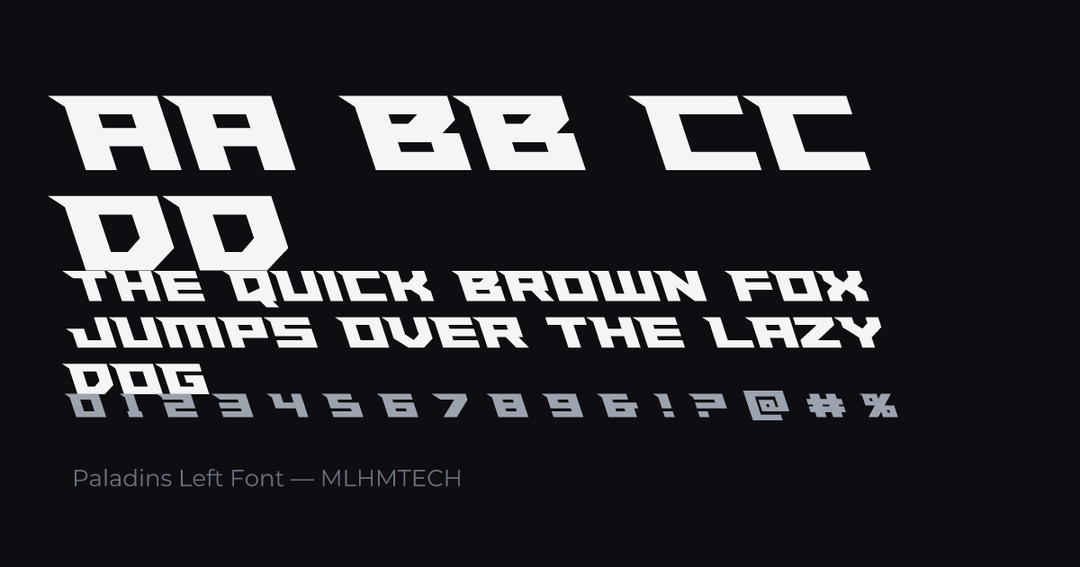
Paladins Left Font
Paladins Left is a bold, display font with a fantasy and gaming aesthetic, ideal for titles, logos, and posters.
Paladins Left is a striking display font that exudes strength and adventure. Its bold, angular letterforms are reminiscent of medieval and fantasy themes, making it perfect for gaming graphics, esports branding, movie posters, and any project that needs a heroic touch.